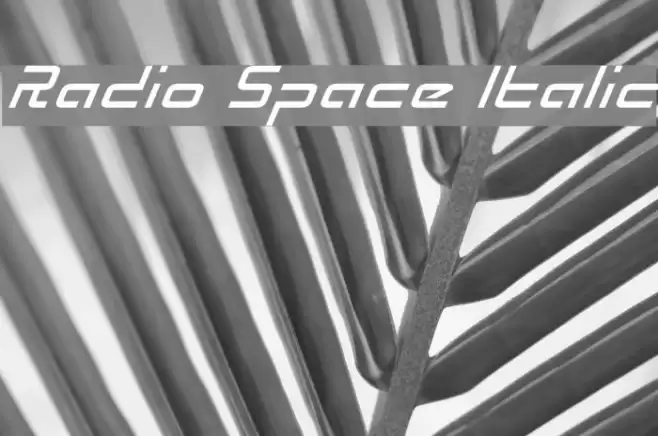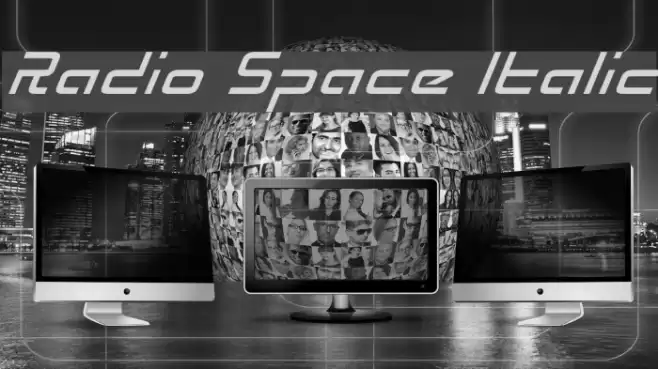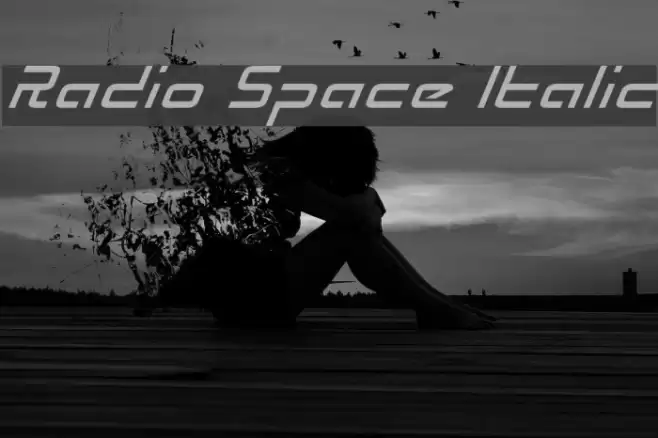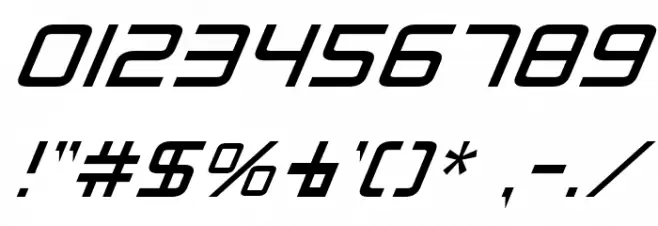
Radio Space Italic Font
Radio Space Italic Description
This font features a futuristic and dynamic design with italicized, angular characters that convey a sense of motion and modernity. The uppercase and lowercase letters are distinct, with sharp edges and a sleek, streamlined appearance. The numbers and special characters maintain this cohesive style, making the font suitable for technology-themed projects. The consistent slant and geometric shapes give it a unique and eye-catching look, perfect for capturing attention in digital and print media.
A futuristic, italicized font with angular, dynamic characters from Sci-fi fonts.
- Proposed Projects: Ideal for sci-fi posters, tech branding, video game interfaces, and modern advertising.
- Use Case: Headlines, Logos, Digital interfaces